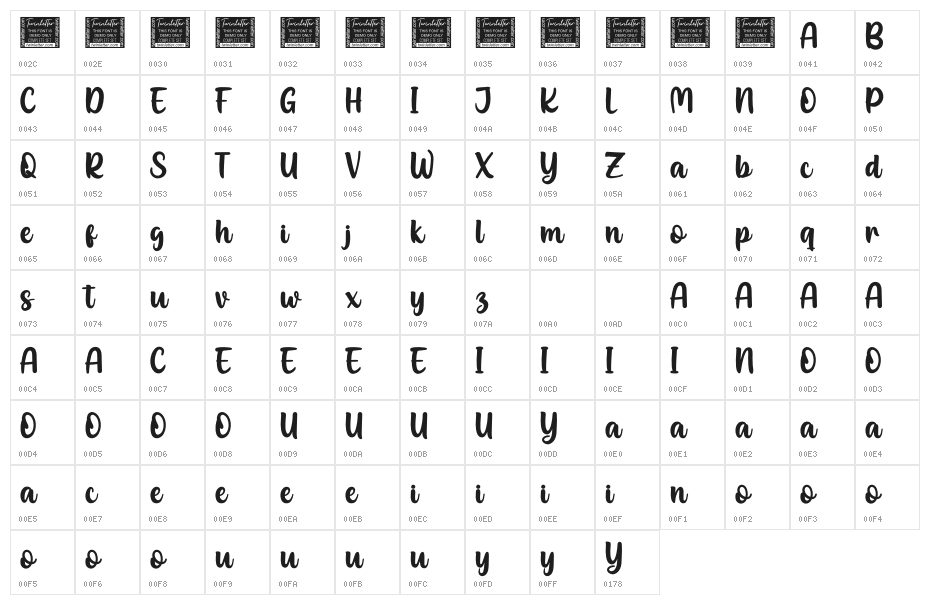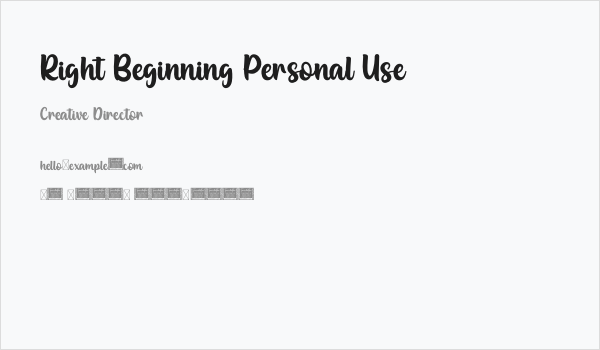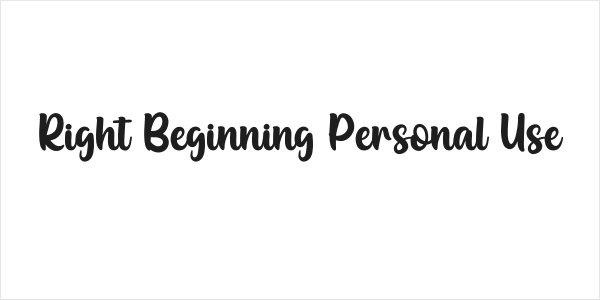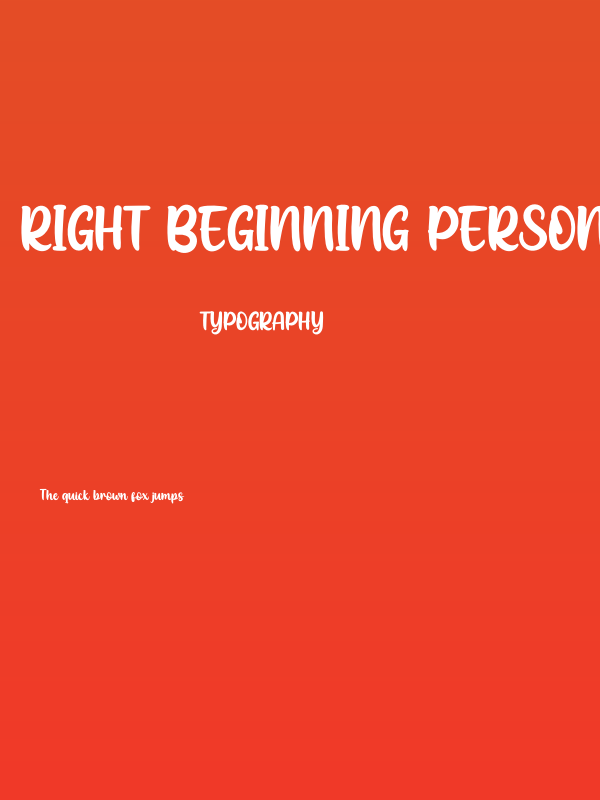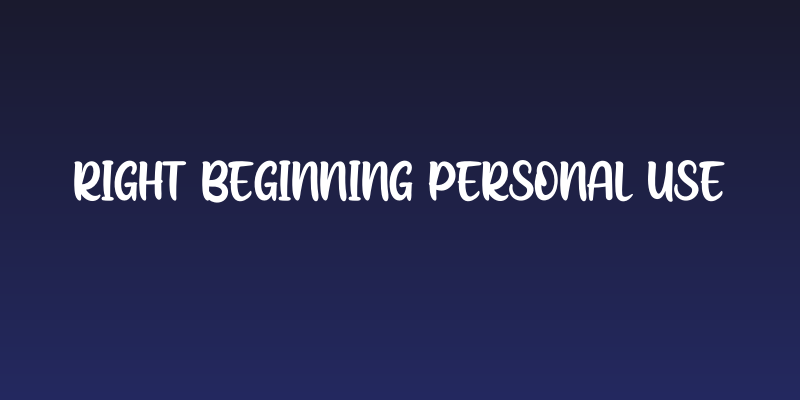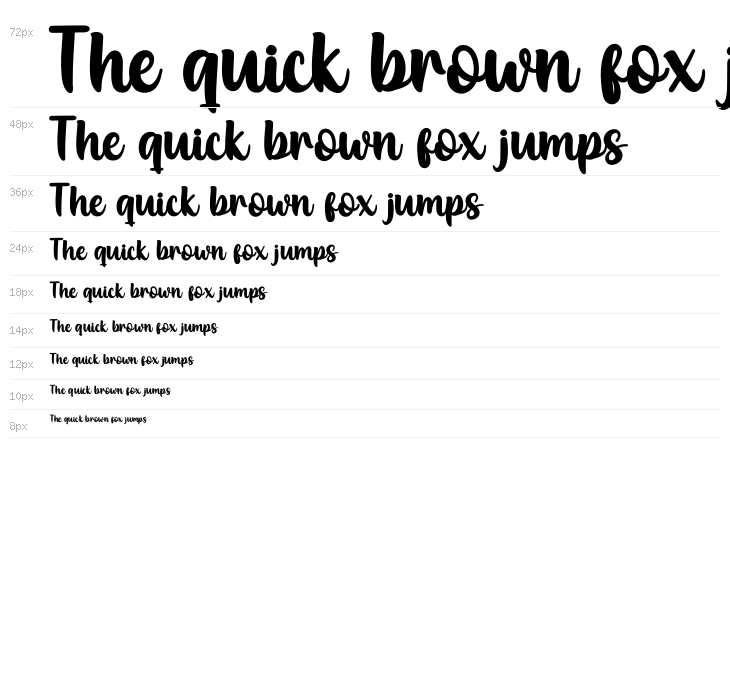
Right Beginning Personal Use Font
Right Beginning Personal Use Description
This font features a bold and playful script style with a handwritten appearance. The letters are thick and rounded, giving them a friendly and approachable look. The uppercase and lowercase characters maintain a consistent flow, with smooth curves and a slight slant that adds to the casual feel. The numbers and special characters are designed to match the overall aesthetic, ensuring a cohesive look across all text. This font is ideal for projects that require a personal touch, such as invitations, greeting cards, or branding materials that aim to convey warmth and creativity.
| Proposed Projects | Ideal for invitations, greeting cards, branding materials, and creative projects. |